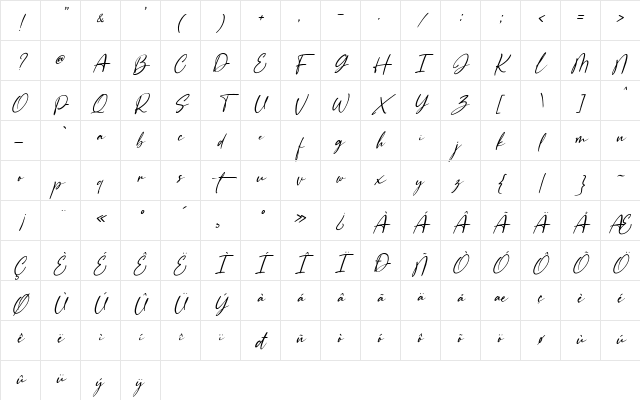
Sattanic is a composed and adaptable typeface that performs quietly and consistently across a wide range of design contexts. The slanted form adds forward momentum and visual energy.
Pro Tip: Use Sattanic for emphasis, pull quotes, and subheadings where its slanted energy can add rhythm to the layout.